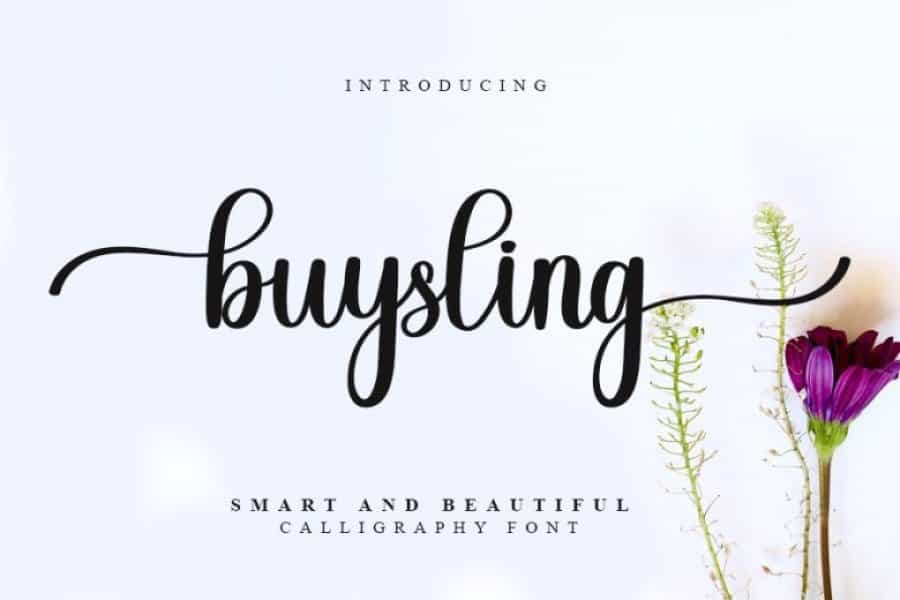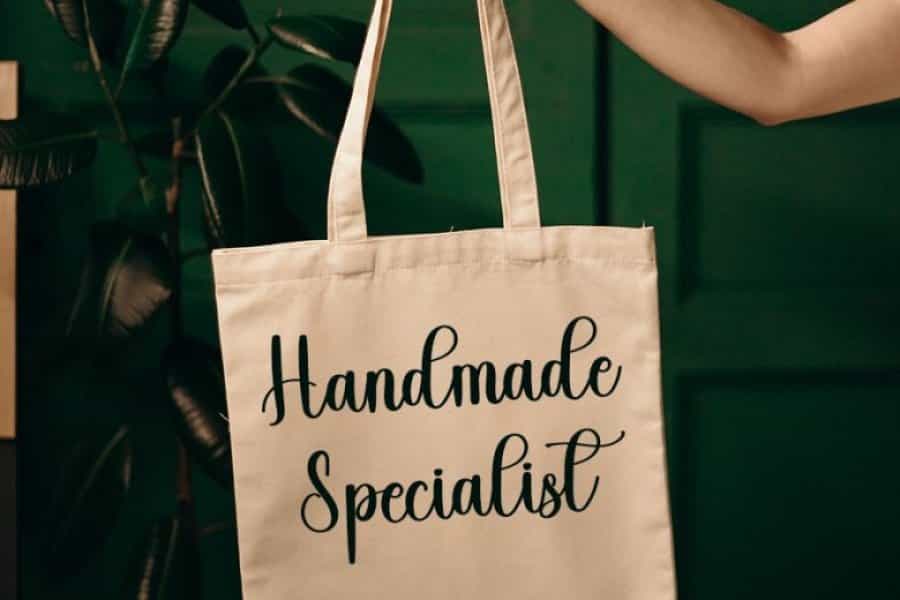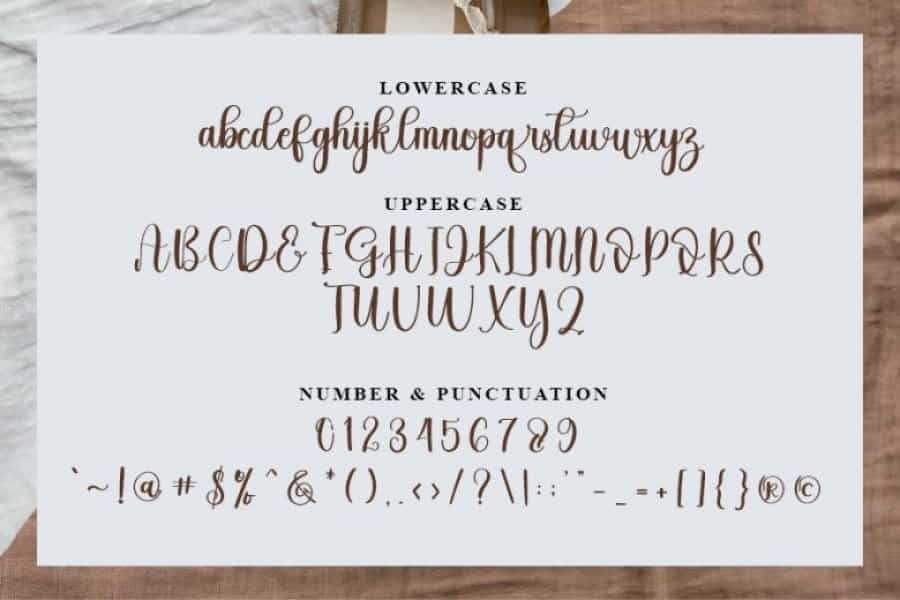
Buysling is an exquisite script for calligraphy script font that adds luxurious appeal to any design project you may undertake! PUA encoded, it allows access to all characters and ligatures easily!